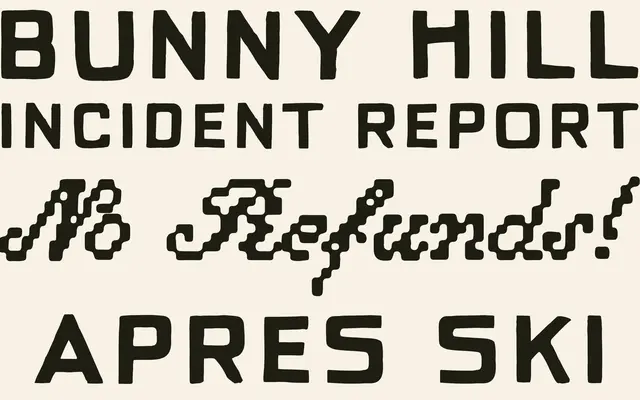
Booster Pack
A growing bundle of Taylor Penton's overflow and newer releases, collecting 13 typefaces at launch with seven more to be added through the year.
Sold as a companion to the Big Collection, the Booster Pack gathers typefaces that arrived late or outside the main release cycle, including collaborations and experiments. The 13 included fonts span a range of expressive display styles under names like Hell's Angles, Red Dye 40 and Stupid Cupid. Buyers receive future additions automatically as they release, and the licence covers commercial use for individuals and teams under 50 employees without seat or traffic restrictions.
A bundle of 13 or more display-oriented typefaces spanning a wide range of styles including script, decorative, and expressive designs; categorised as display given the collection's character and the playful, graphic nature implied by the named fonts.